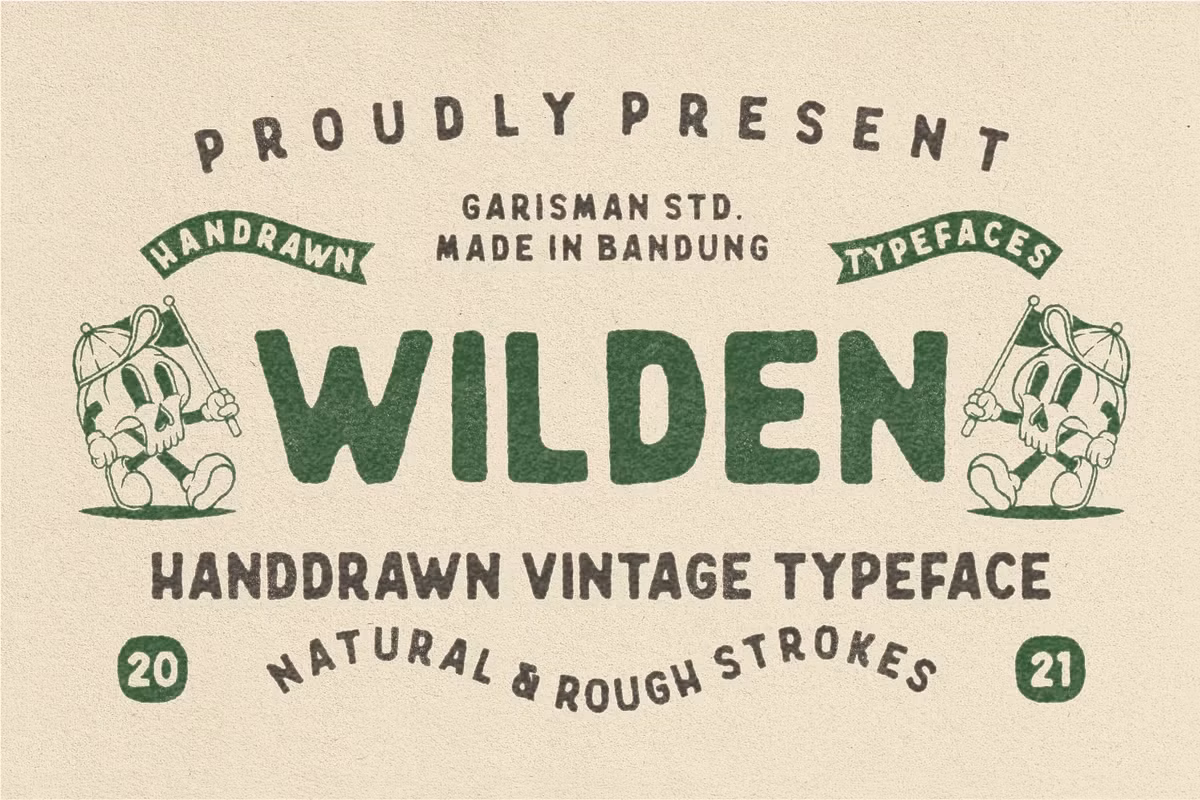
Wilden Font Free Download is a rugged hand-drawn vintage typeface inspired by classic sign painting, retro badges, and outdoor adventure aesthetics. With its textured strokes, bold letterforms, and handcrafted charm, Wilden is perfect for vintage logos, posters, apparel designs, product labels, and any project that calls for an authentic, old-school vibe.
Designed to bring a raw and nostalgic feel to your typography, Wilden Font Free Download captures the spirit of heritage branding and handcrafted artistry. Its uneven edges and natural imperfections give your designs a gritty, real-world character that stands out in both print and digital formats.
Wilden works great as a headline or logo font and pairs beautifully with sans-serifs or script fonts for layered, dynamic compositions. Whether you're working on a coffee label, a barbershop brand, or a retro poster, Wilden delivers vintage personality with strength and style.